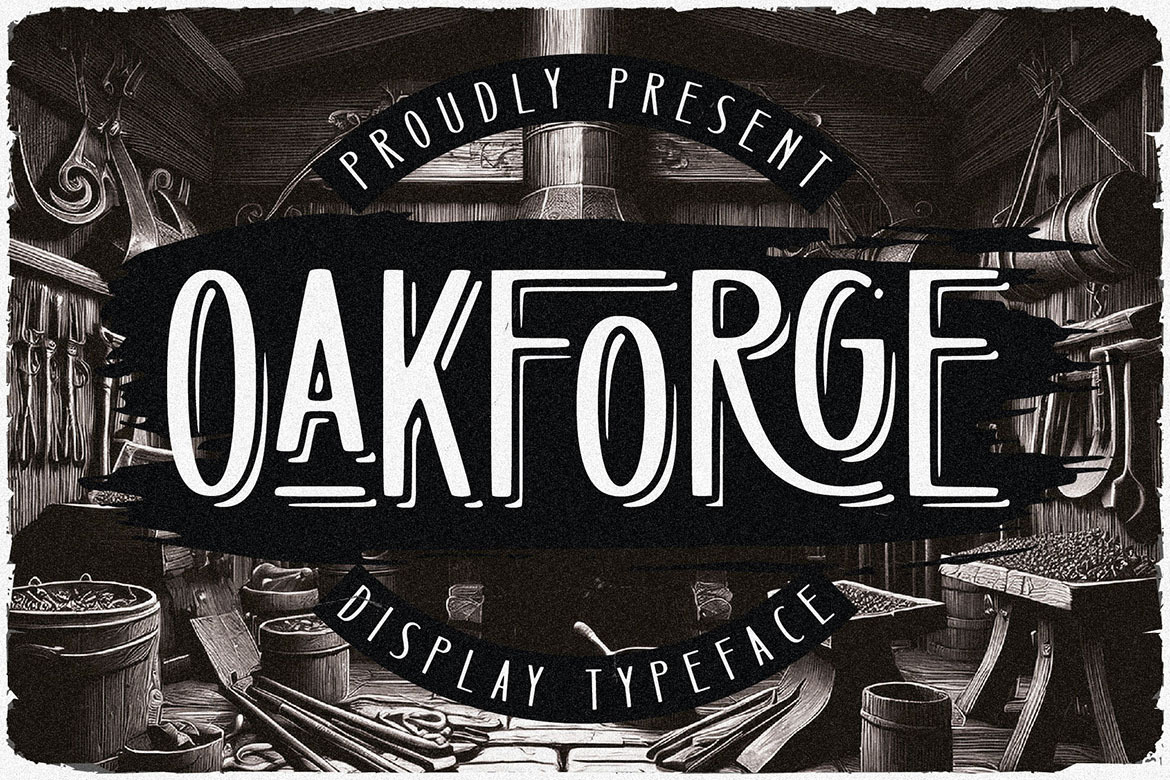
Oakforge - Retro Display Font
Unique, playful, clean, retro, condensed & ligature display sans serif font. Comes with multilingual support & a lot of ligatures + 2 font versions - great for your new logo, monogram or branding project.
- 2 font versions - regular & shadow
- Multilingual support, ligatures & alternates
- Great for your new logo, monogram or branding project